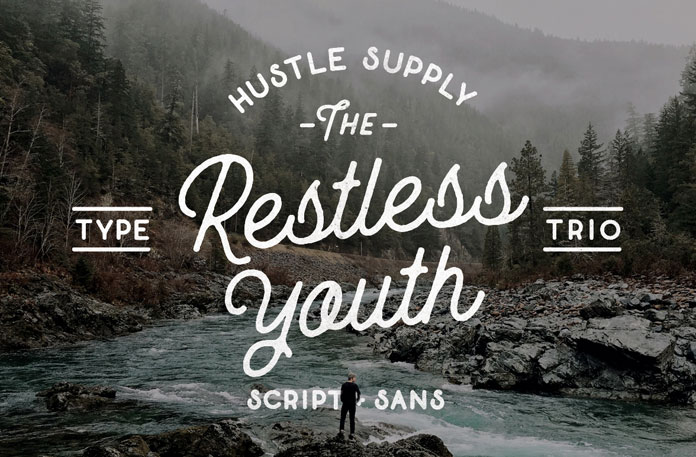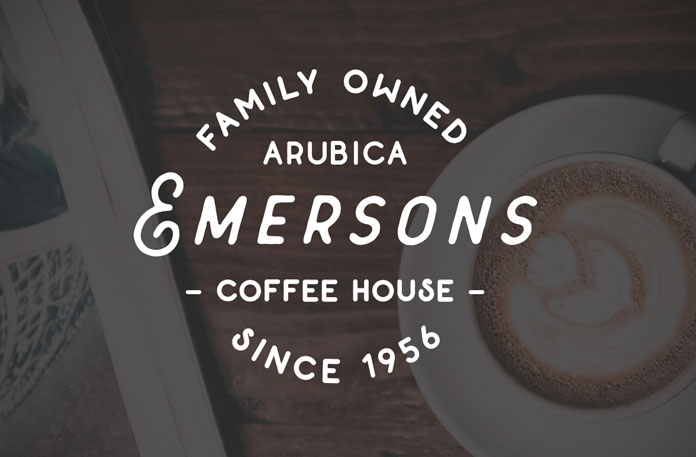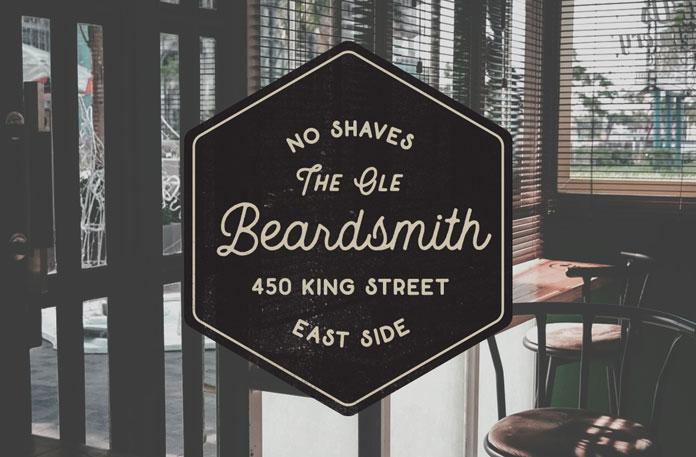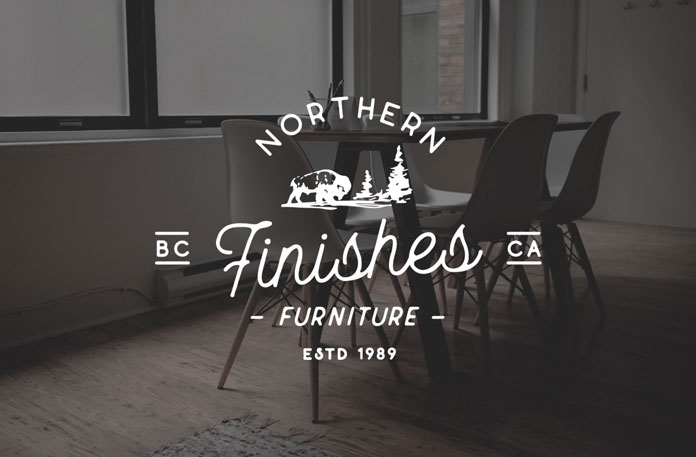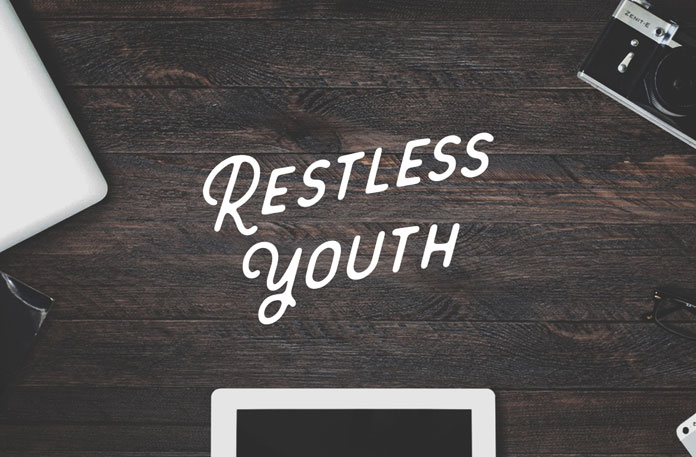
Discover the Restless Youth fonts bundle!
Now it’s time to show you some more outstanding fonts. The Restless Youth fonts bundle comprises 4 font files and 3 different styles of typefaces. All the different styles can be paired easily to achieve a striking und unique typographic work. You can use them to create distinctive titles or logotypes. Restless Youth includes a sans and a script as well as a small caps version. Each styles is based on a fine hand-lettered look. If you spent hours to find a suitable sans serif that goes smooth with a script typeface, you probably should use the Restless Youth fonts bundle and your search is over. Both styles match each other perfectly. They offer such great uniformity in texture, shape, weight, and much more. The Restless Youth fonts are a good choice for people who are looking for a special aesthetic with a little Vintage inspired touch. For additional information on this great offer, feel free and follow the link below.